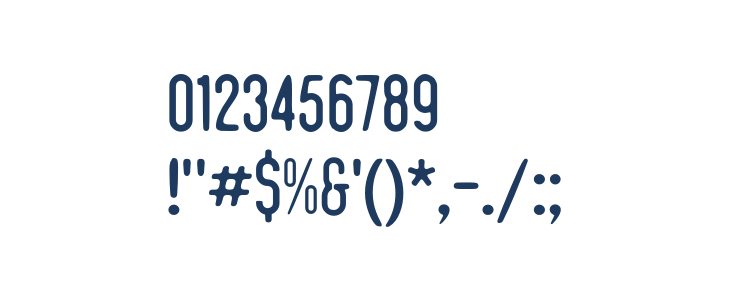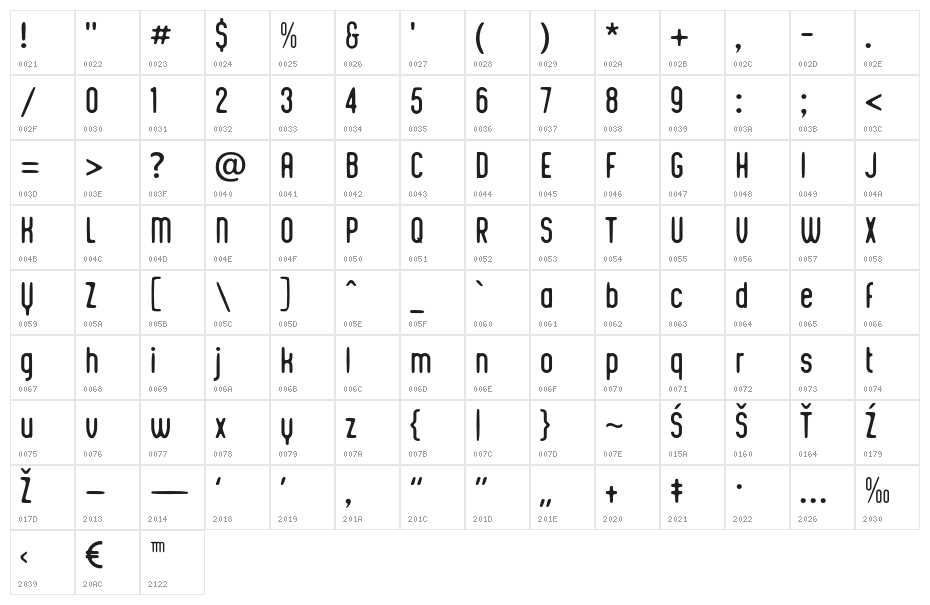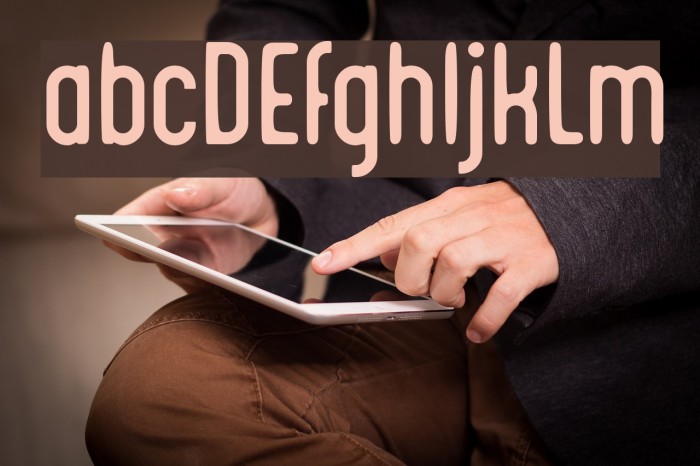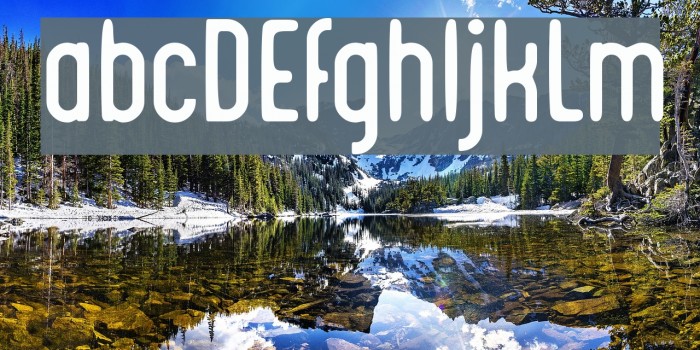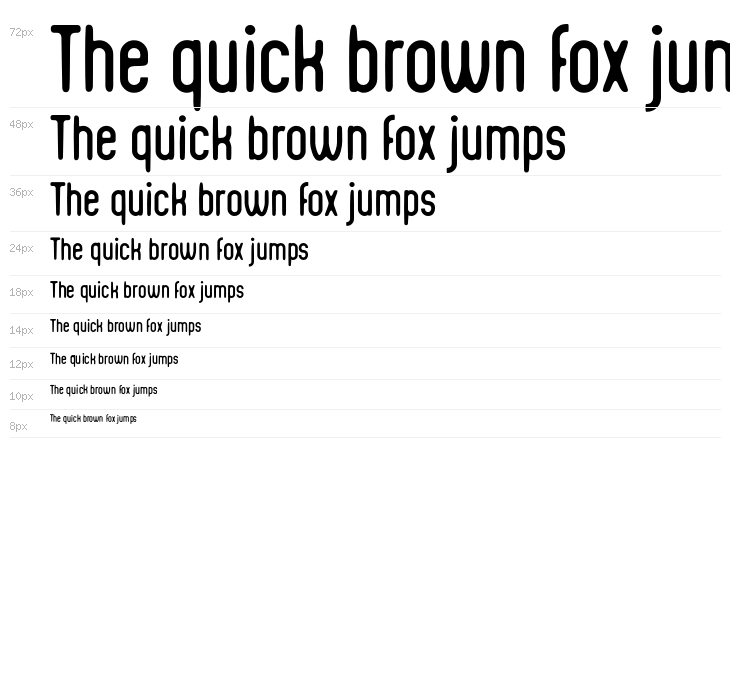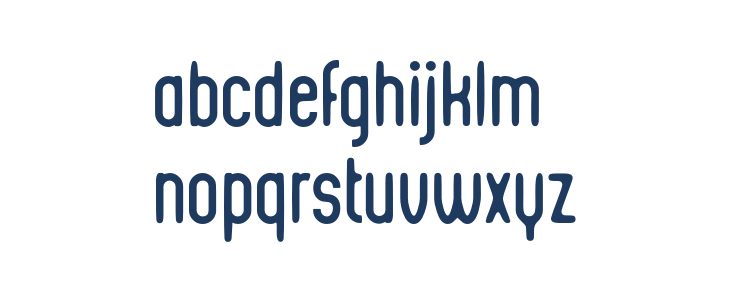
Integra Chic Font
Integra Chic Description
This font features a playful and modern design with rounded edges and a consistent stroke width, giving it a friendly and approachable appearance. The characters are slightly condensed, which adds to its unique style. The uppercase and lowercase letters maintain a uniform height, enhancing readability. The numerals and special characters are designed to match the overall aesthetic, making it versatile for various applications. Its clean lines and smooth curves make it suitable for both digital and print media, offering a contemporary yet timeless look.
| Use Case | Headlines, Logos, Digital content |
| Proposed Projects | Ideal for branding, advertising, children's books, and digital content that requires a playful yet professional touch. |